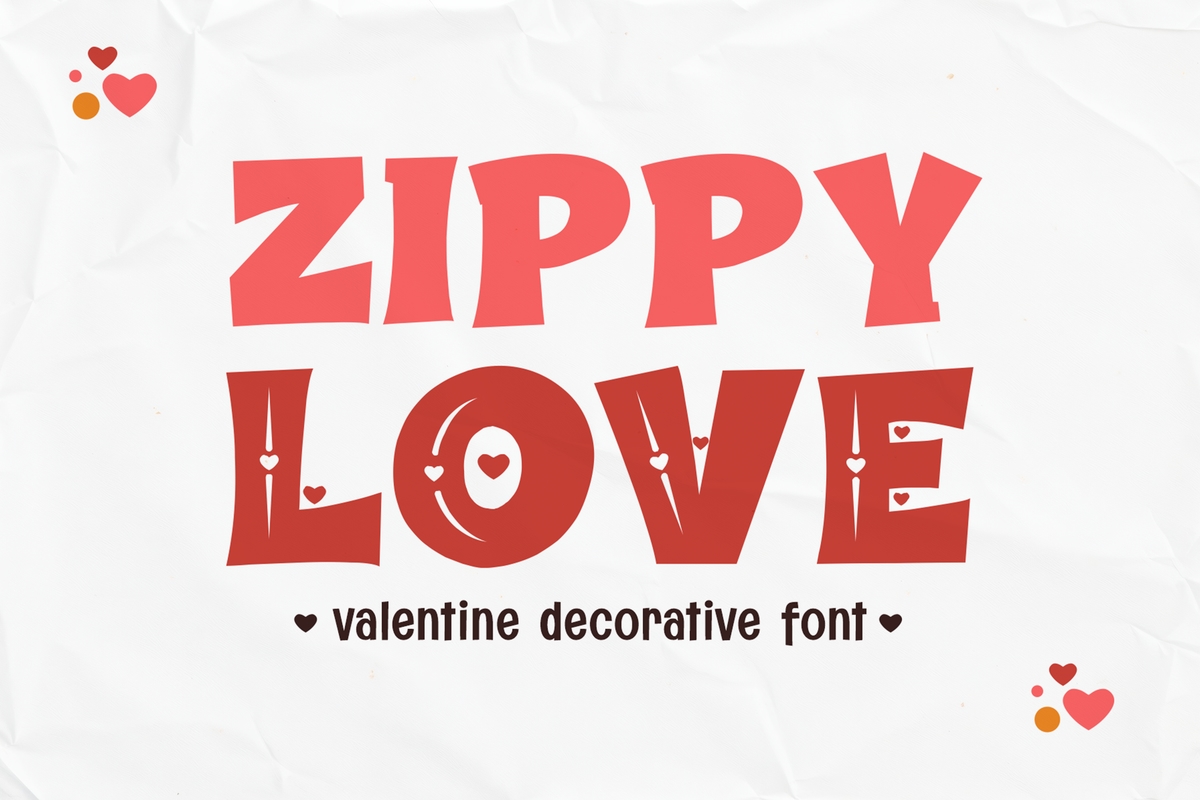
Zippy Love Decorative
Zippy Love is a playful Valentine decorative typeface created to express love, joy, and warmth through bold typography. Featuring two complementary styles—Regular and Decorative—this font allows designers to craft expressive layouts that feel both friendly and romantic. The Regular style delivers clean, rounded letterforms for clarity and balance, while the Decorative style introduces heart-shaped details that enhance emotional storytelling. Inspired by Valentine cards, retro romance graphics,